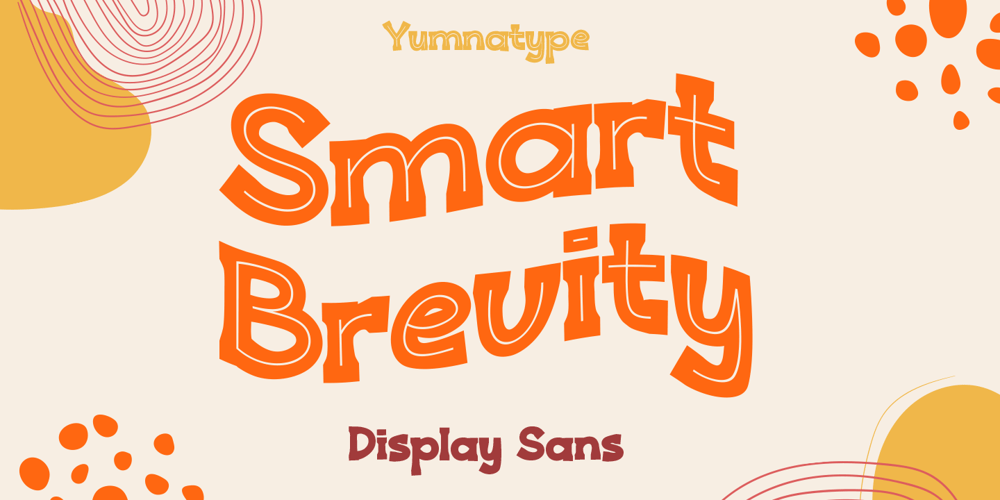
Smart Brevity Font Family was designed by Donis Miftahudin and published by Yumna Type. Smart Brevity contains 2 styles and family package options. Smart Brevity is a charming display font that combines a playful style with a touch of sophistication. With its unique design, this font adds personality and flair to any design project. Each letter in Smart Brevity is crafted with rounded shapes, giving it a soft and inviting appearance. The thick weight of the font adds to its bold and confident presence.What sets Smart Brevity apart is its inline detail, which adds a touch of elegance and refinement to the font. This subtle detail enhances the overall design, giving it a sense of depth and dimension. In addition, enjoy the features here.Features: Ligatures Multilingual Supports PUA Encoded Numerals and Punctuations Smart Brevity fits in headlines, logos, posters, flyers, branding materials, print media, editorial layouts, and many more designs. Find out more ways to use this font by taking a look at the font preview.Thanks for purchasing our fonts. Hopefully, you have a great time using our font. Feel free to contact us anytime for further information or when you have trouble with the font. Thanks a lot and happy designing.